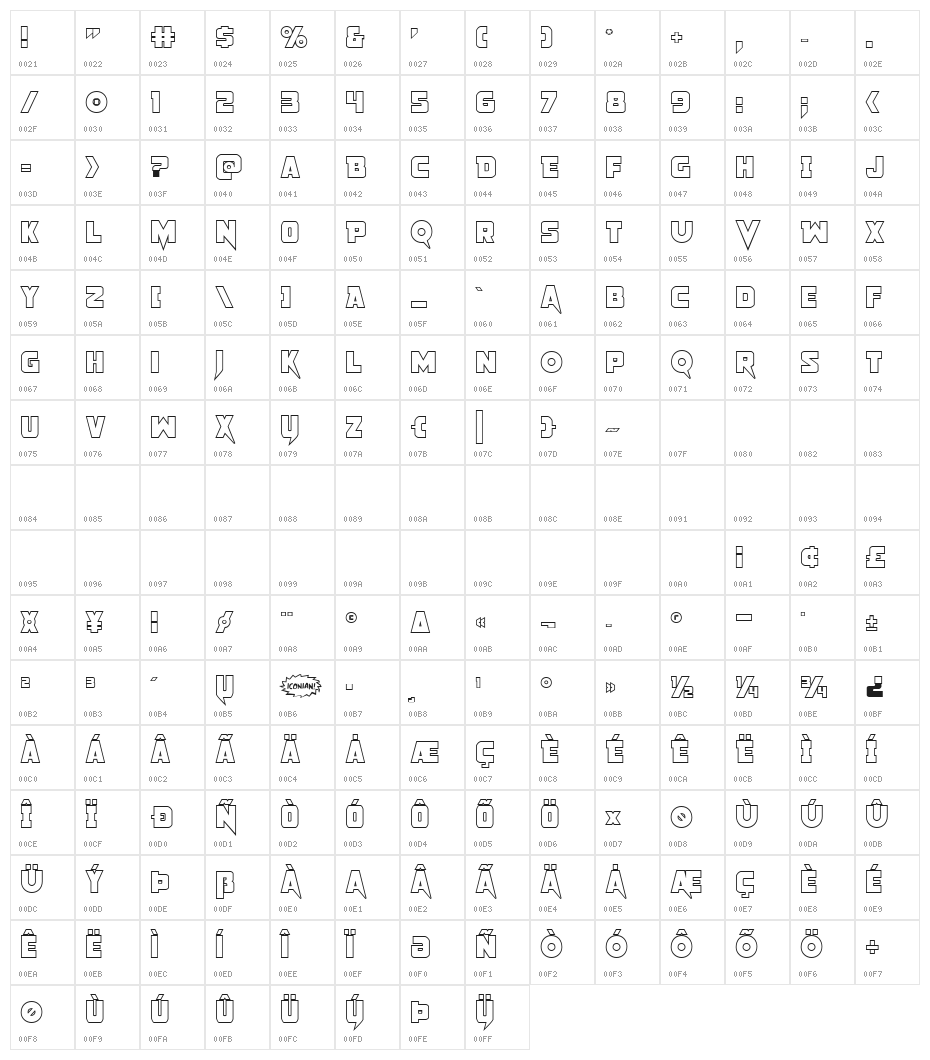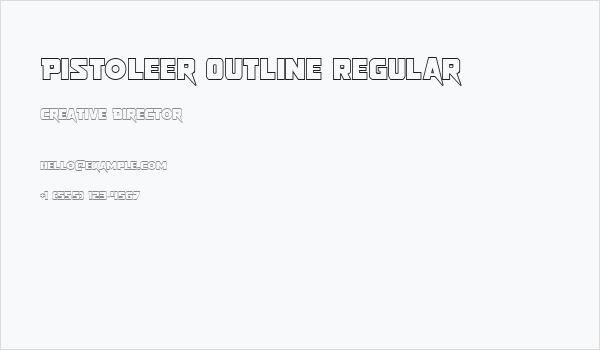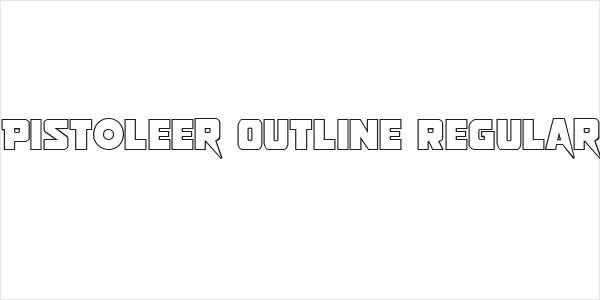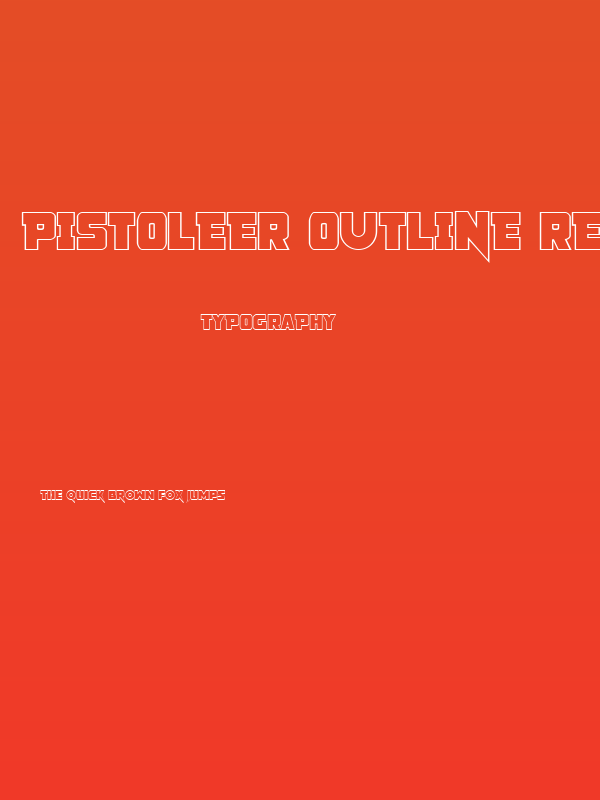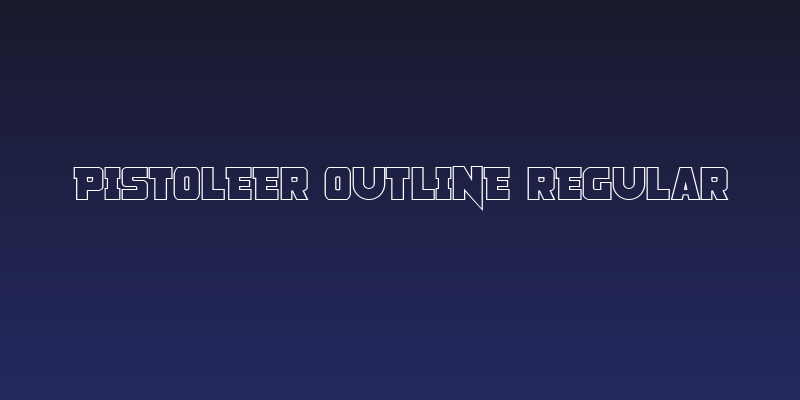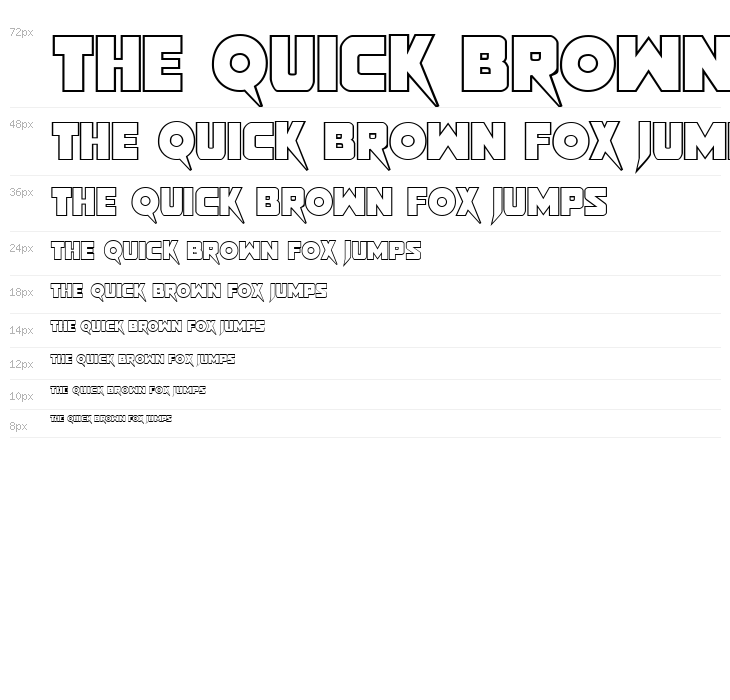
Pistoleer Outline Regular Font
Pistoleer Outline Regular Description
This font features a bold, outlined style with sharp, angular edges and a dynamic, energetic appearance. The uppercase letters are particularly striking, with exaggerated points and a geometric structure that conveys a sense of movement and power. The numbers and special characters maintain this bold outline, ensuring consistency across all glyphs. The font's design is reminiscent of comic book or action movie titles, making it ideal for projects that require a strong visual impact. Its unique style is both eye-catching and memorable, suitable for creative and adventurous designs.
| Proposed Projects | Ideal for comic book titles, action movie posters, video game covers, and branding that requires a strong visual impact. |